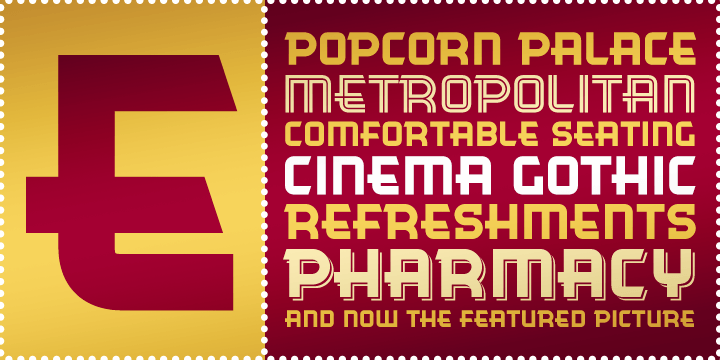
Cinema Gothic BTN
About Cinema Gothic BTN
Cinema Gothic is an Art Deco style typeface with a vintage 1930s feel inspired by popcorn palaces, pharmacies, and motels of the post depression era.